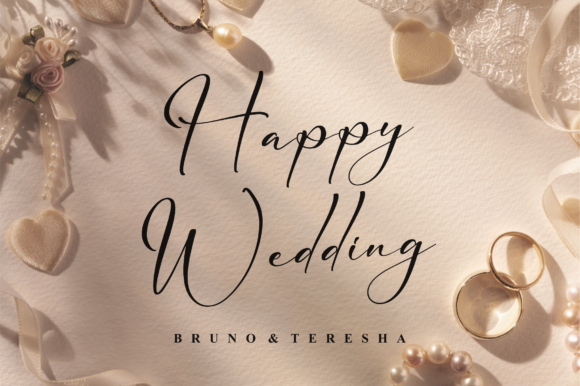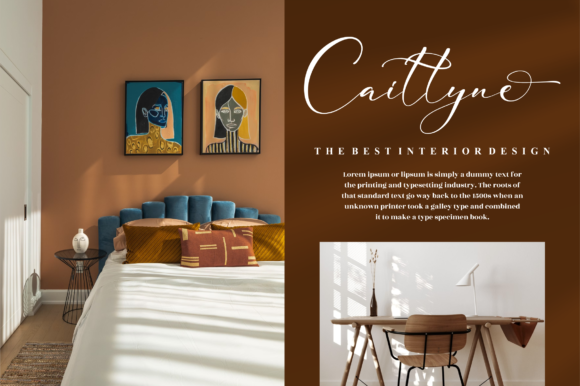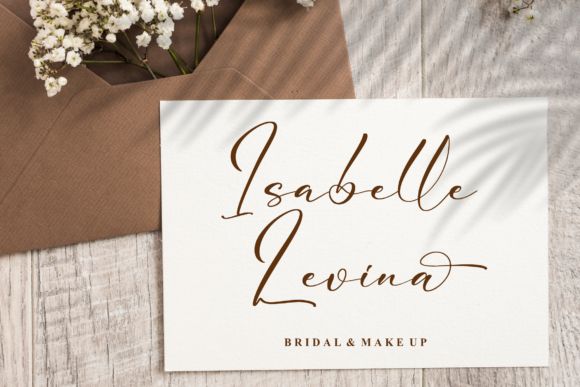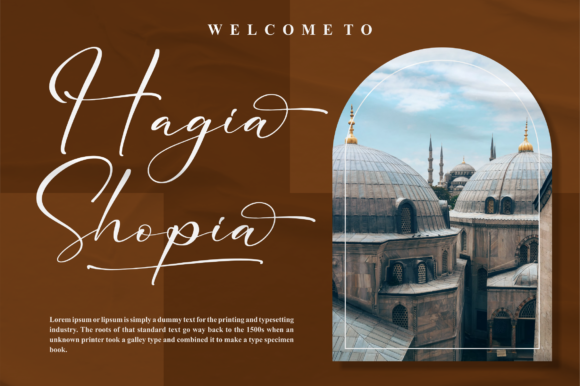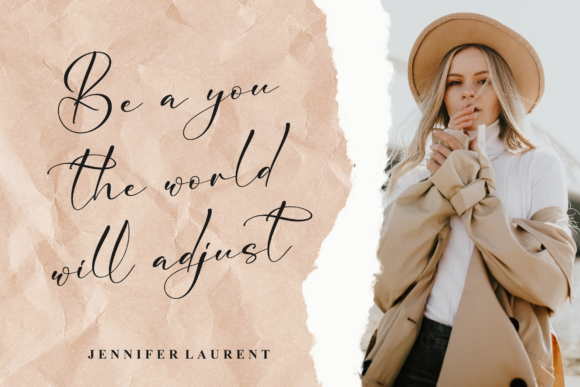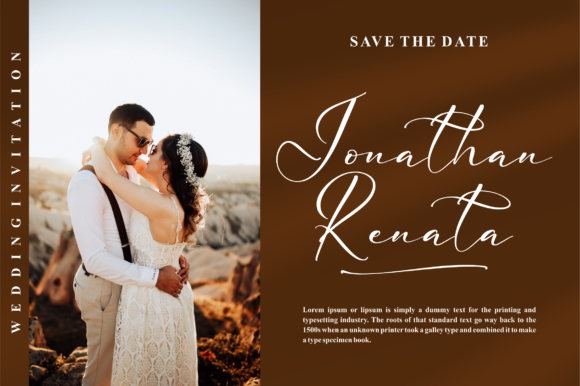
Introduction to Shefiola Lovelya Font
Shefiola Lovelya is a flowing and delicate handwritten font that embodies charm and elegance in every character.
Use it for projects that need lovely, romantic typography This font is PUA encoded, which means you can access all of the glyphs and swashes with ease.